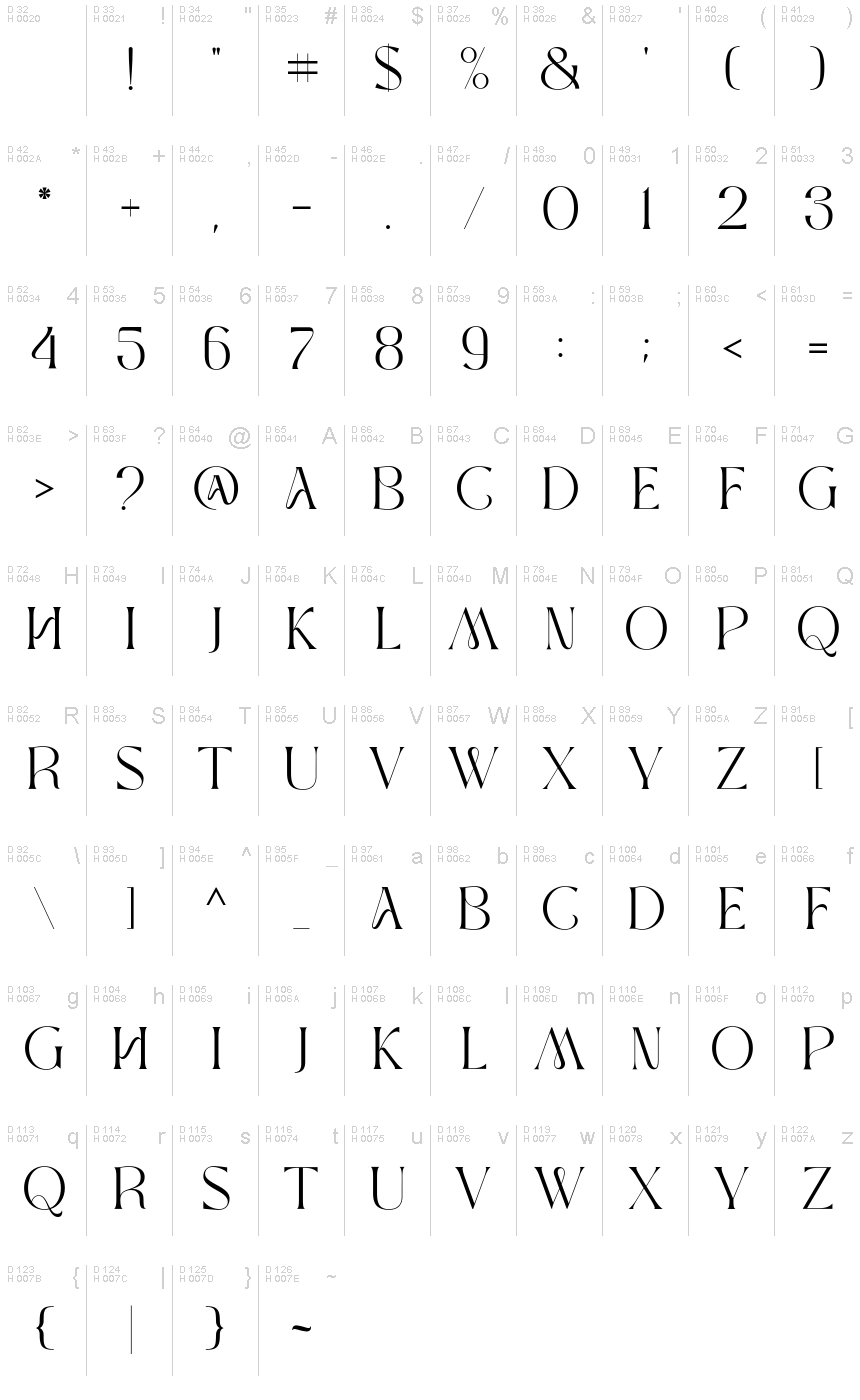
MOXA Bestine
The MOXA Bestine font, crafted by the talented ToniStudio, exudes a captivating blend of elegance and timelessness. This serif typeface boasts a refined, sophisticated aesthetic, with its delicate strokes and harmonious proportions evoking a sense of refined sophistication. The subtle interplay of thick and thin lines, coupled with the gentle curves and serifs, lends the MOXA Bestine an alluring and memorable presence.
This versatile font can elevate a wide range of design projects, from high-end editorial pieces to elegant branding campaigns. Its classic yet contemporary appeal makes it a versatile choice for a multitude of applications, where a touch of elegance and timelessness is desired.